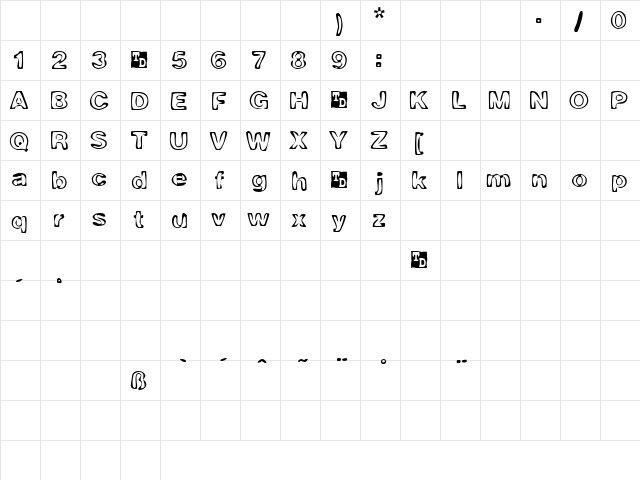
Design Context for BurnOut Typeface
BurnOut is a composed and adaptable typeface that performs quietly and consistently across a wide range of design contexts.